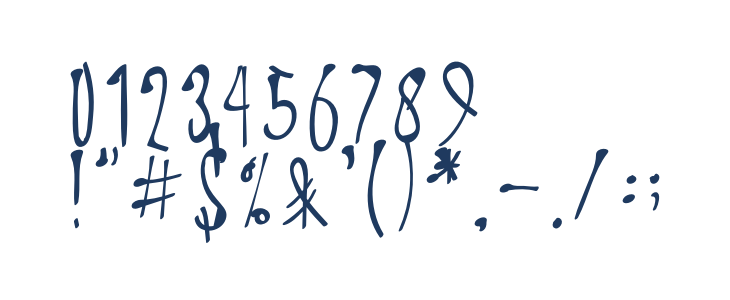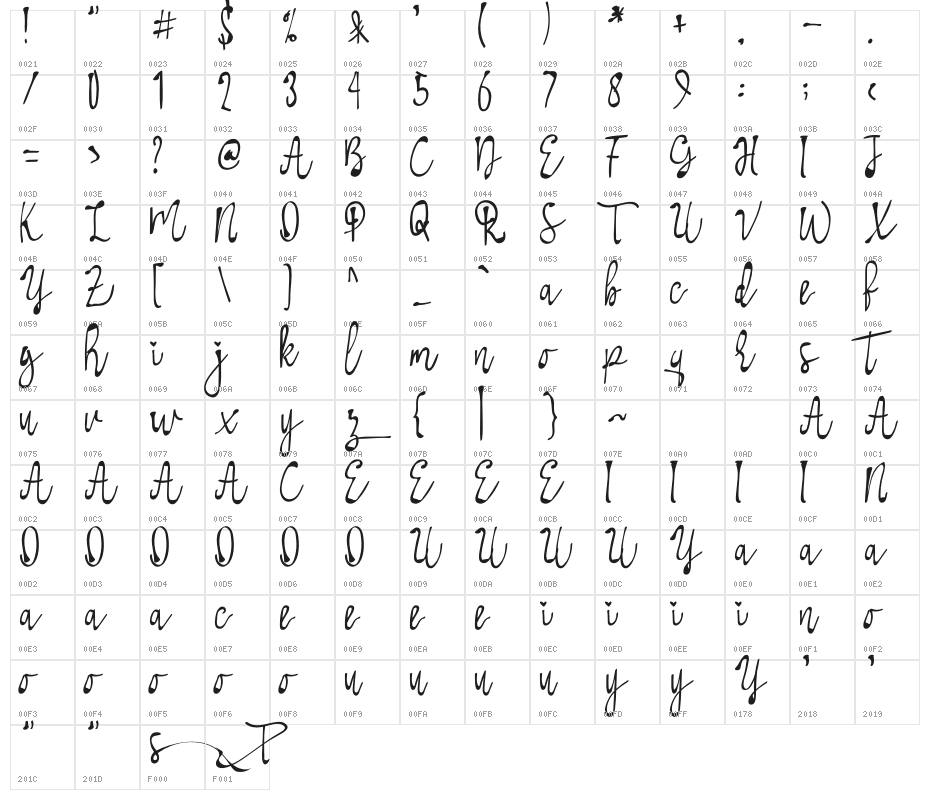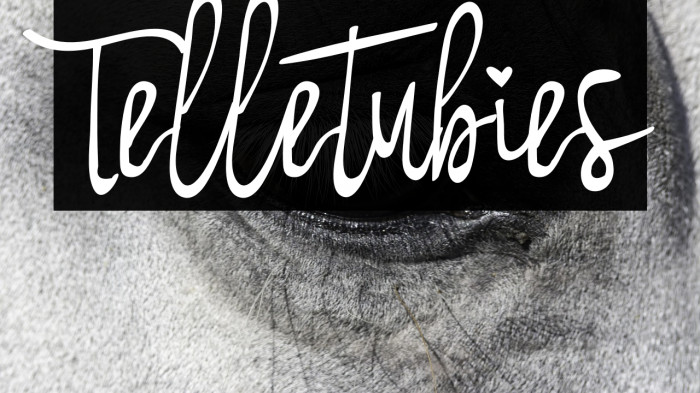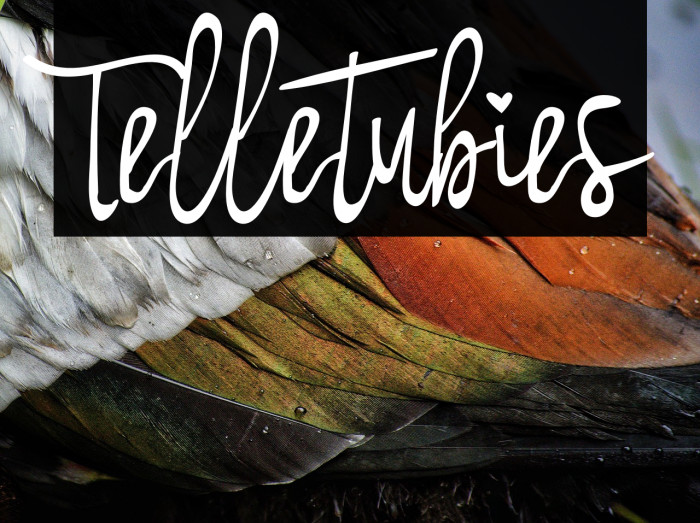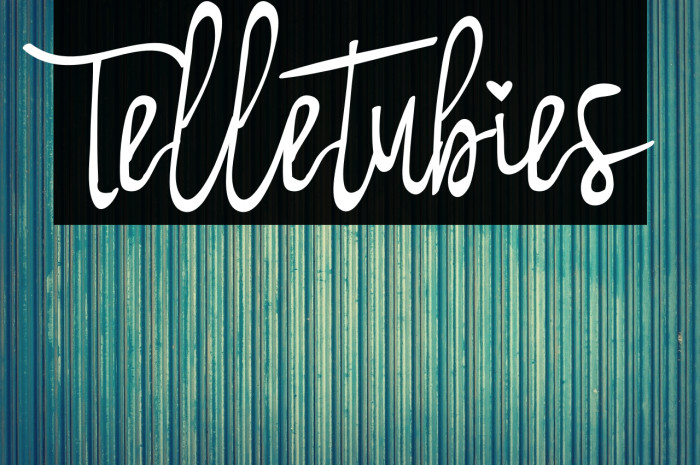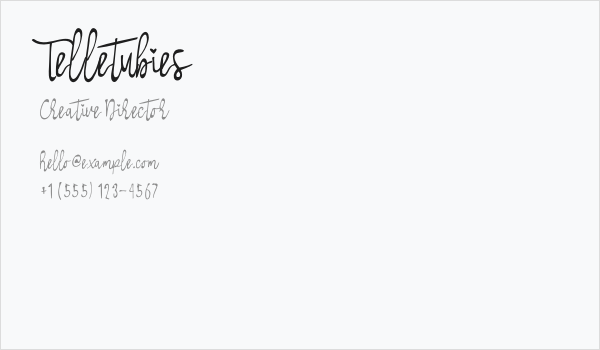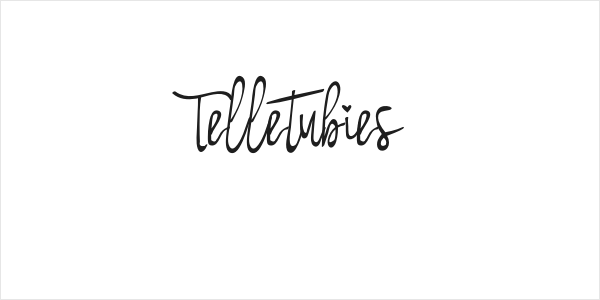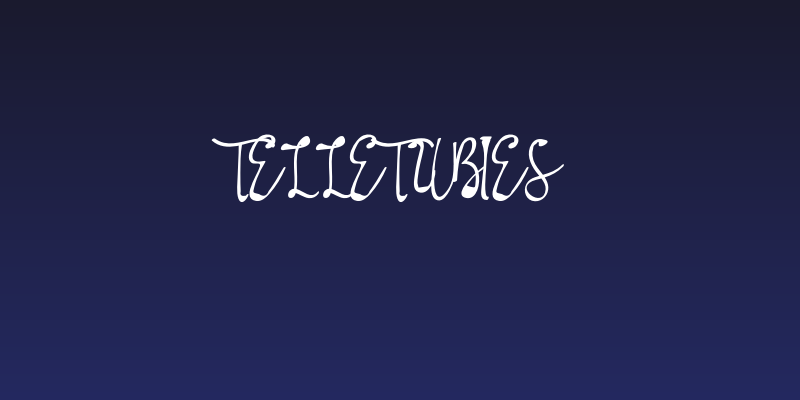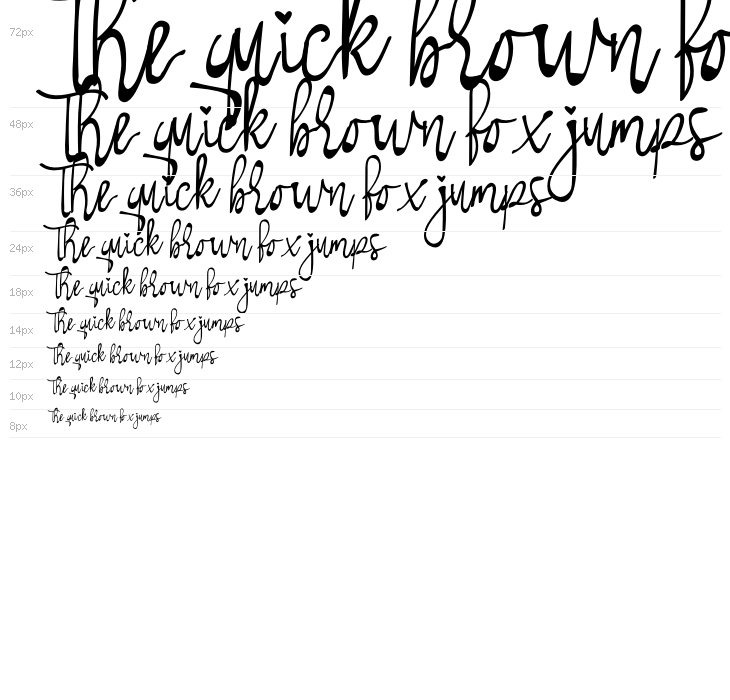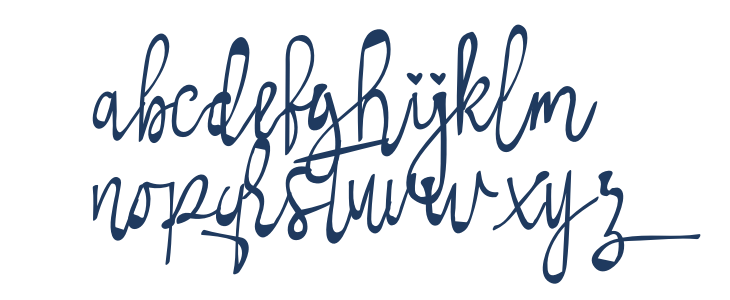
Telletubies Font
Telletubies Description
This font features a playful and whimsical handwritten style, characterized by its fluid and dynamic strokes. The uppercase and lowercase letters exhibit a natural, flowing script with varying stroke widths that add a lively and energetic feel. The numerals and special characters maintain the same playful aesthetic, making the font versatile for creative projects. The overall appearance is informal and artistic, perfect for adding a personal touch to designs. The characters are slightly slanted, enhancing the handwritten effect, and the strokes have a medium contrast, providing a balanced visual appeal.
Overall StylePlayful, Artistic
Use CaseLogos, Invitations, Creative projects
Proposed ProjectsIdeal for greeting cards, invitations, personal branding, and creative posters.